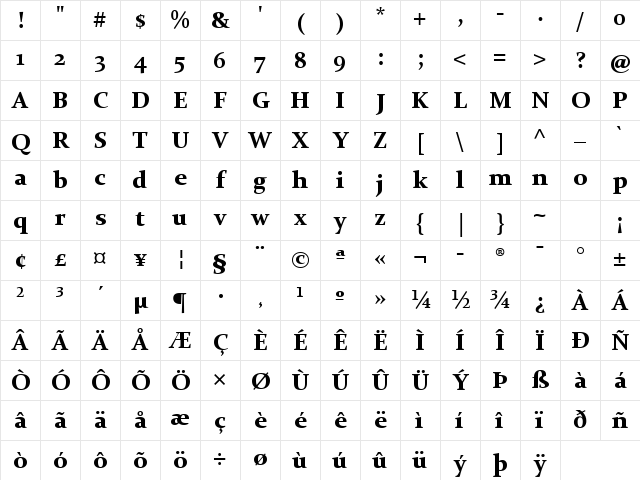
Constantia Bold
Foundry: Microsoft Corporation
Designer: John Hudson
Design Context for Constantia
Constantia is a composed and adaptable typeface that performs quietly and consistently across a wide range of design contexts. Its bold stroke weight gives it real presence on the page.